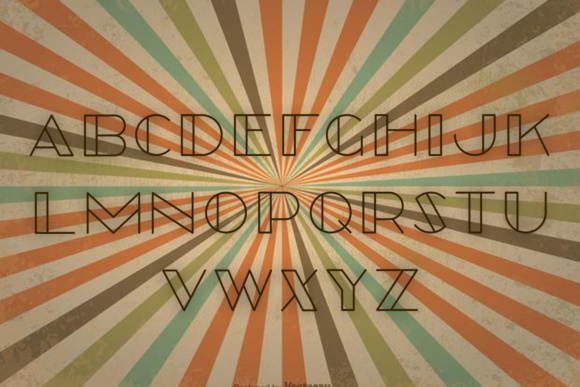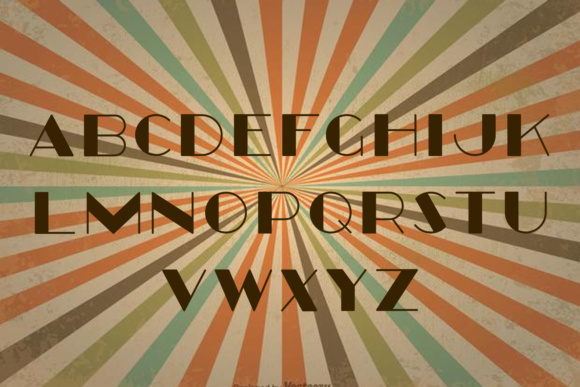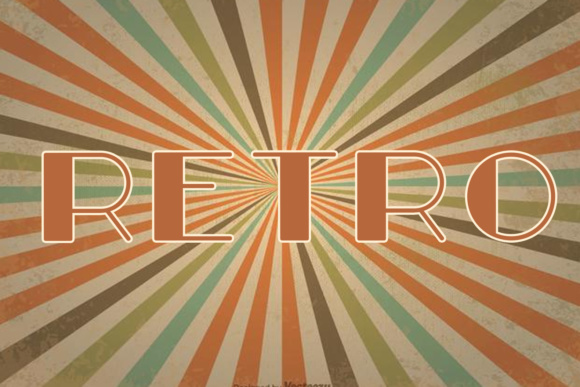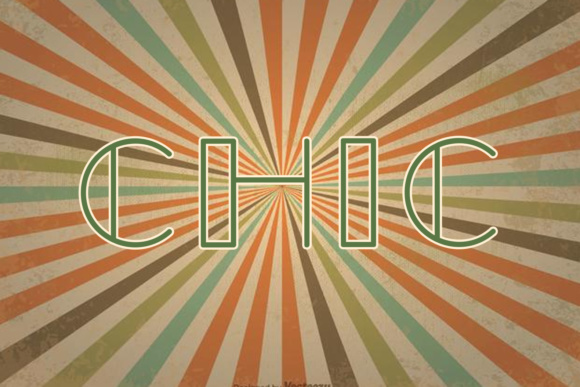
Better Font: A Retro-Style Typography for Modern Designs
Are you tired of using the same old fonts in your designs? Do you want to add a touch of nostalgia and personality to your posters, shirts, banners, and more? Look no further than Better Font, a fantastic retro-style font that’s perfect for crafters and designers alike. In this article, we’ll dive into the world of Better Font, exploring its features, benefits, and uses, as well as provide tips on how to make the most of this amazing typography.
What is Better Font?
Better Font is a unique, retro-style font that comes in two versions: regular and book. This dual offering allows designers to choose the perfect style to suit their needs, whether they’re creating a vintage-inspired poster or a modern t-shirt design. With its bold, eye-catching letters, Better Font is sure to grab attention and add a touch of personality to any design.
Key Features of Better Font
- Retro-style design: Better Font boasts a classic, nostalgic look that’s reminiscent of the good old days. Its unique lettering style is sure to transport your designs back in time.
- Two font versions: The regular and book versions of Better Font offer designers a range of options for their designs. Whether you need a bold, attention-grabbing font or a more subtle, elegant look, Better Font has got you covered.
- High-quality design: Better Font is designed with precision and care, ensuring that every letter and detail is crisp and clear. This makes it perfect for use in a variety of designs, from posters and banners to t-shirts and stickers.
Uses for Better Font
Better Font is an incredibly versatile typography that can be used in a wide range of designs, including:
- Posters: Add a touch of nostalgia to your posters with Better Font. Its bold, eye-catching letters are sure to grab attention and make your posters stand out.
- T-shirts and apparel: Better Font is perfect for use on t-shirts, hoodies, and other apparel. Its unique style is sure to make your designs stand out and add a touch of personality to any outfit.
- Banners and signs: Whether you’re creating a banner for a business or a sign for an event, Better Font is a great choice. Its bold letters are sure to grab attention and make your message clear.
- Stickers and labels: Better Font is also perfect for use on stickers and labels. Its small size and crisp details make it ideal for use on a variety of products, from laptops to water bottles.
Tips for Using Better Font
Here are a few tips for getting the most out of Better Font:
- Experiment with different sizes: Better Font looks great in a range of sizes, from small and subtle to large and bold. Experiment with different sizes to find the perfect look for your design.
- Pair with other fonts: Better Font pairs well with a range of other fonts, from modern sans-serifs to classic serifs. Experiment with different pairings to find the perfect combination for your design.
- Use it sparingly: While Better Font is a great font, it can be overwhelming if used too much. Use it sparingly to add a touch of personality to your design without overwhelming the viewer.
Better Font is an amazing retro-style typography that’s perfect for designers and crafters alike. With its bold, eye-catching letters and versatile design, it’s sure to add a touch of personality to any design. Whether you’re creating posters, t-shirts, banners, or more, Better Font is a great choice. So why not give it a try and see what amazing designs you can create?